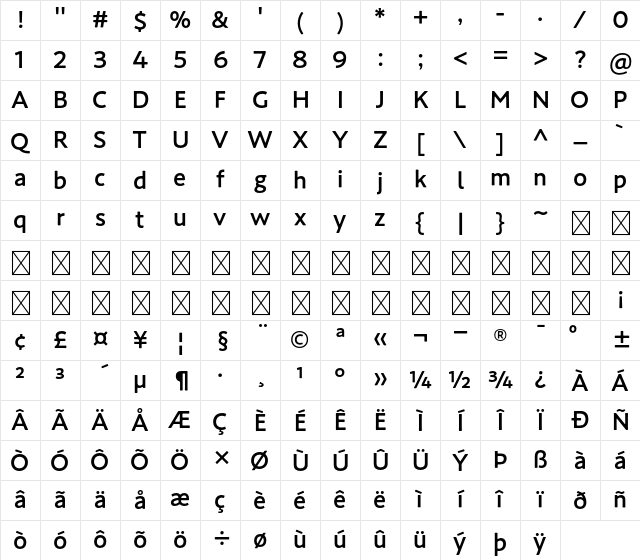
A P-OTF A1Gothic StdN M
Style: M
Design Context for A P-OTF A1Gothic StdN
A P-OTF A1Gothic StdN takes a clean, functional approach - its unadorned letterforms prioritise legibility and work reliably across screen and print environments.
Font Pairing: Works well alongside a characterful serif or display font that can carry the expressive load while A P-OTF A1Gothic StdN handles the functional copy.
Pro Tip: Use A P-OTF A1Gothic StdN for UI labels, navigation, and short-form body copy where clean legibility is the priority.